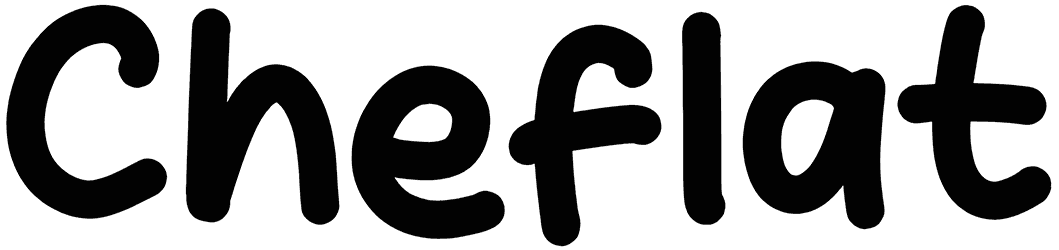
Cheflat Font
There’s a lot you can do with a baby font, and that’s so much more than just designing baby shower websites, kids’ storybooks, baby clothes store signs, and things like that. Case in point, Cheflat has so much cuteness to it that you can’t afford to let it go to waste.
So anytime and anywhere you want to ensure the playfulness of your writing, this cartoon font should be enough to resolve that. The kawaii of handwriting will keep you amused.